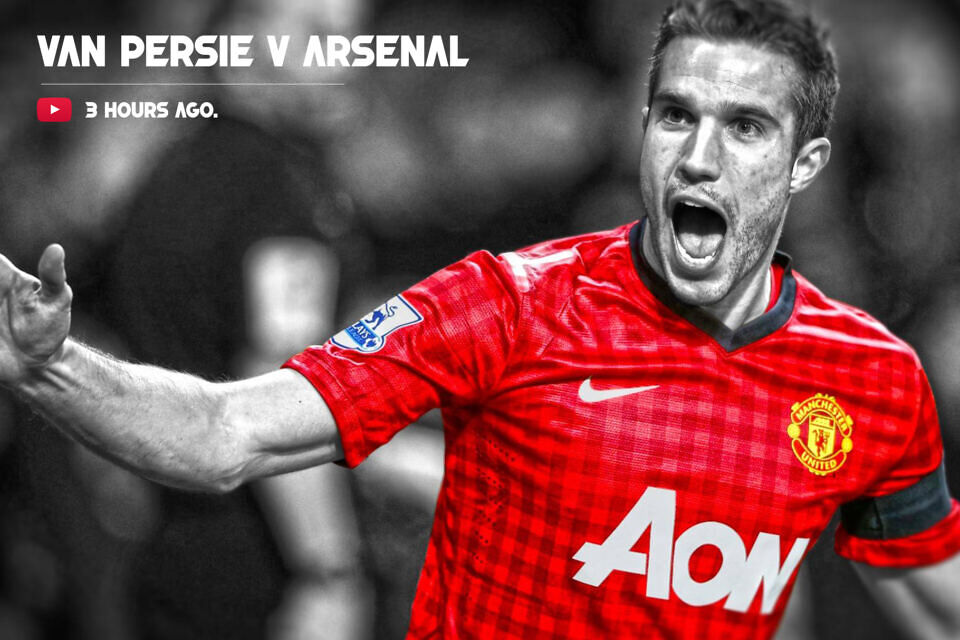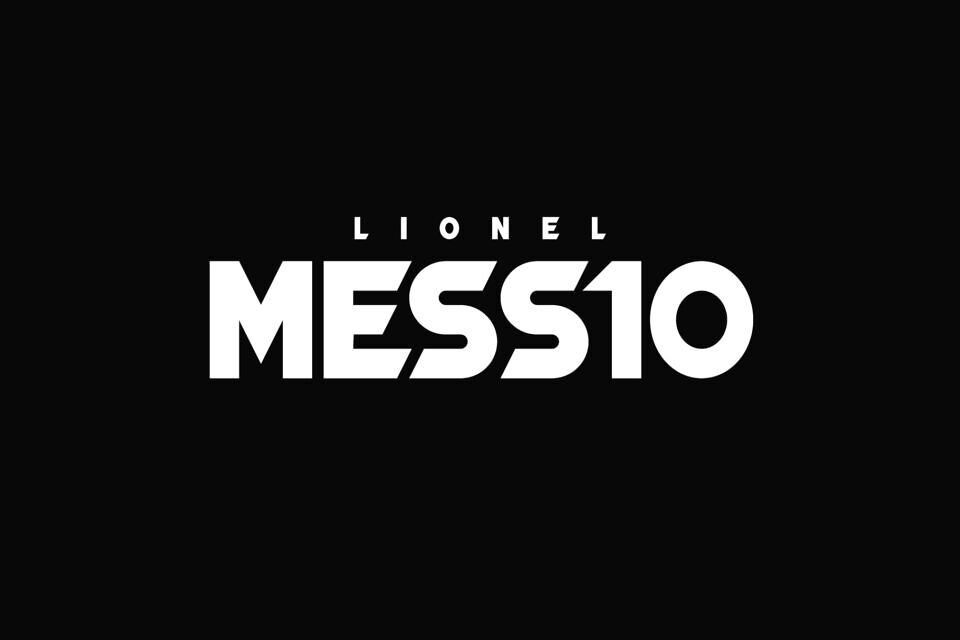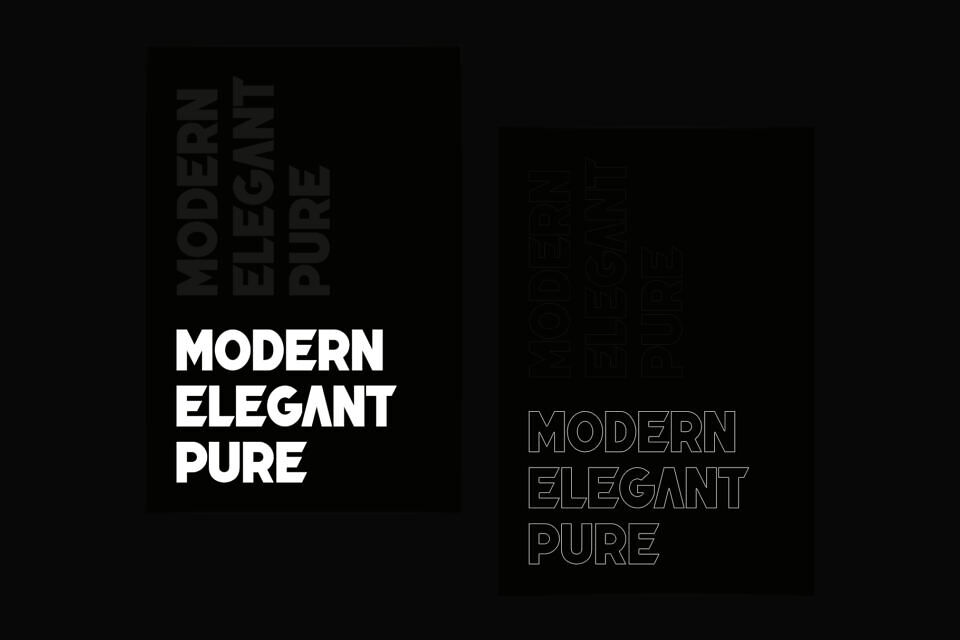
Arrakis Font
Arrakis is a bold and simple sans serif font. It can easily be matched to an incredibly large set of projects, so add it to your creative ideas and notice how it makes them stand out!